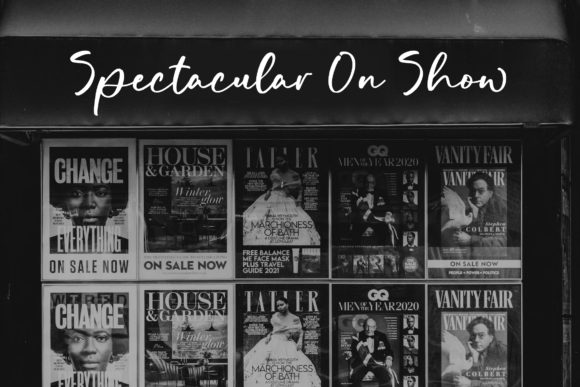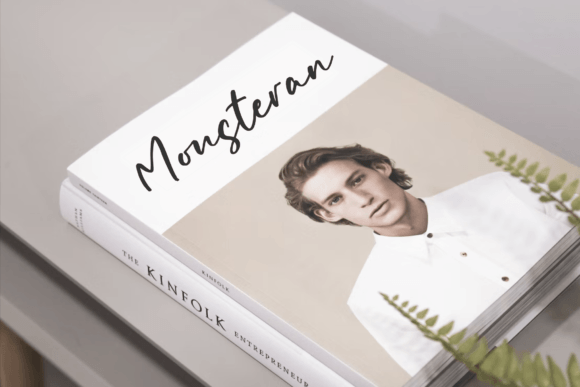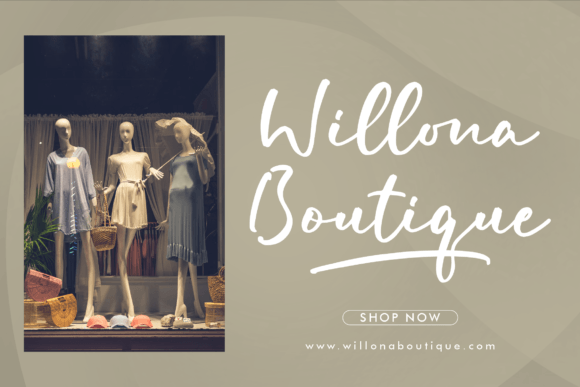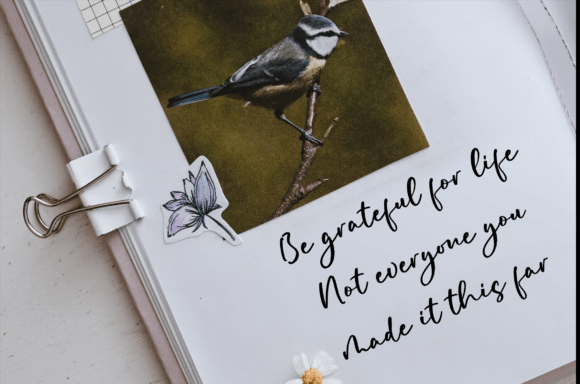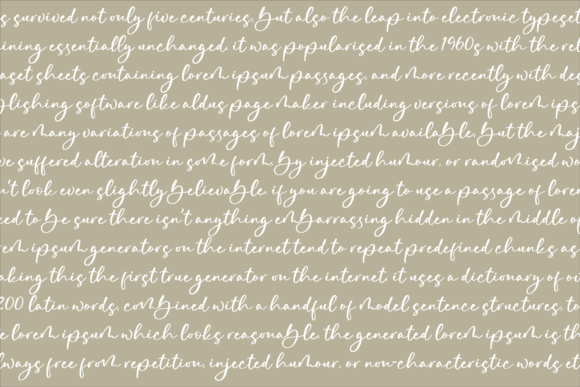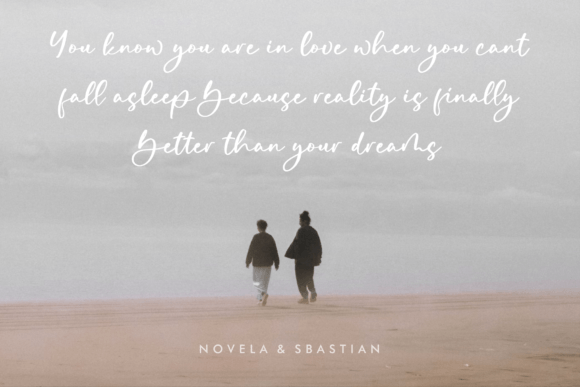
Introduction to Romans Adsttone Font
Imagine you’re working on a creative project and you need a font that captures the essence of elegance and sophistication. You’re scrolling through design resources, searching for the perfect match, and then you stumble upon it – the Romans Adsttone Font. This beautiful brush script font is a game-changer for designers looking to add a touch of luxury to their work.
With its high-quality design and versatility, the Romans Adsttone Font is a valuable asset for any designer. Whether you’re working on a logo, branding project, or product packaging, this lovely handwritten typeface is sure to impress. Plus, with a transparent background option, you can easily add your design to any background, making it a great resource for free download and use in your creative projects.
From greeting cards to book covers, the Romans Adsttone Font is perfect for a wide range of applications. Its creative possibilities are endless, and with a high-quality design, you can trust that your work will stand out from the crowd.
Key Features of Romans Adsttone Font
- High-quality, unique font design ideal for creative projects
- Perfect for designers, artists, and creatives working on projects requiring a distinctive, elegant font
Honest Review: Romans Adsttone Font
As a designer, I’m always on the lookout for high-quality design resources to elevate my creative projects. The Romans Adsttone Font is one such resource that caught my attention. After putting it through its paces, here’s my honest review.
- ✨ Unique aesthetic: The Romans Adsttone Font has a distinct, elegant feel that sets it apart from more generic fonts.
- ✨ High quality: The font is well-crafted, with smooth lines and no noticeable flaws.
- ⚠️ Limited character set: While the font is available in multiple weights and styles, the character set is somewhat limited.
- ⚠️ Not suitable for all designs: The font’s elegant, classic feel may not be the best fit for every design project.
Overall, I’m impressed with the Romans Adsttone Font’s unique aesthetic and high quality. While it may not be the best fit for every design project, it’s an excellent option for those looking for a free, high-quality font with a transparent background.
The Romans Adsttone Font is a versatile, high-quality design resource ideal for creative projects. Its unique style and transparent background make it perfect for various applications.
For optimal results, use the Romans Adsttone Font in conjunction with a high-contrast background. Experiment with different font sizes and styles to achieve the desired look.
The Romans Adsttone Font is ideal for:
Creating eye-catching social media graphics
Designing presentations and reports
Adding a unique touch to your website or blog